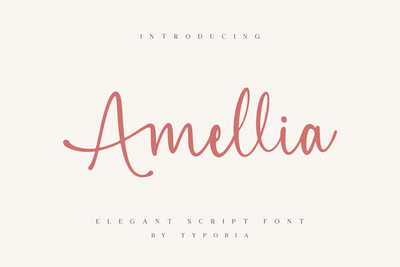
Amellia // Elegant Script Font
Amellia is an elegant script font that comes beautiful ligature, this font is easy to use and you can mix and match for your design project.